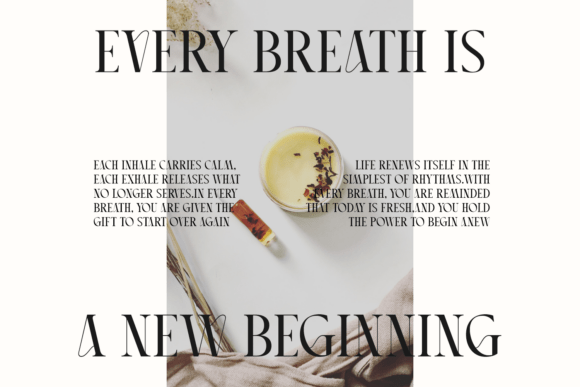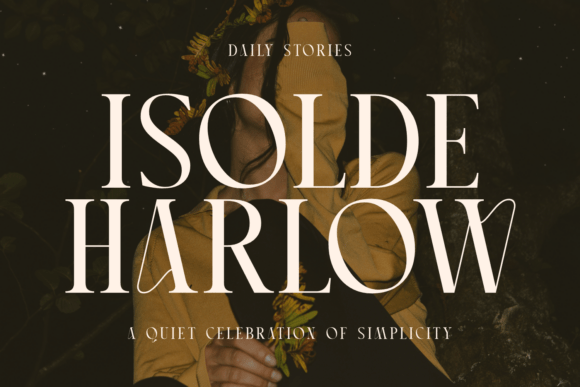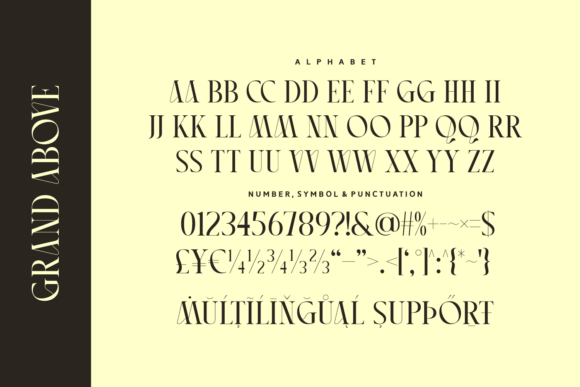
Introduction to Grand Above Font
As a designer, you know the thrill of finding that perfect font to elevate your creative project. The moment you see it, you just know it’s the one – the combination of style, sophistication, and elegance that makes your design stand out. For me, that moment came when I stumbled upon the Grand Above Font. Its refined strokes, artistic curves, and tall, slender letterforms immediately captured my attention, and I knew I had to learn more.
With its high-quality design, the Grand Above Font is a valuable resource for designers looking to add a touch of modern elegance to their work. Whether you’re working on a luxury branding project, a wedding invitation, or a fashion design, this font is sure to make a striking presence. And the best part? It’s available for a free download, making it an accessible design resource for creatives of all levels.
As I explored the Grand Above Font further, I was impressed by its versatility and the way it can be used with a transparent background to create a stunning visual effect. In this article, we’ll take a closer look at the features and benefits of the Grand Above Font, and how you can use it to elevate your next creative project.
Key Features of Grand Above Font
- High-quality design with a transparent background, perfect for creative projects requiring a touch of elegance.
- Features a unique, modern design with a high level of detail, making it suitable for use in a range of creative projects.
- Includes a range of characters and glyphs, including uppercase and lowercase letters, numbers, and punctuation marks.
Honest Review: Grand Above Font
I recently stumbled upon the Grand Above Font, a high-quality design resource that I’d like to share with you. I downloaded it for free, and I must say, it’s been a valuable addition to my creative project. The font features a transparent background, which is perfect for overlaying on images or other design elements.
Here are some aspects that work well for me: ✨ Beautifully crafted letters and glyphs ✨ Excellent legibility, even at small font sizes ✨ Great for both digital and print designs ✨ Free download, which is a major plus for designers on a budget
However, I did encounter a few limitations: ⚠️ Limited character set, which may not be suitable for extensive text-based projects ⚠️ Some letters may not be as stylish as others, which could be a concern for designers who prioritize aesthetics
Overall, I’m quite impressed with the Grand Above Font. Its high quality and versatility make it a great design resource for creative projects. While it may have some limitations, it’s definitely worth considering for your next design endeavor.
Here are some possible use cases for the Grand Above Font:
- Headlines and titles for digital or print projects
- Overlay text on images or videos
- Creating unique and stylish social media graphics
The Grand Above Font is suitable for various creative projects, such as logo design, infographics, and social media graphics. It is also ideal for presentations, reports, and documents that require a professional and elegant look.